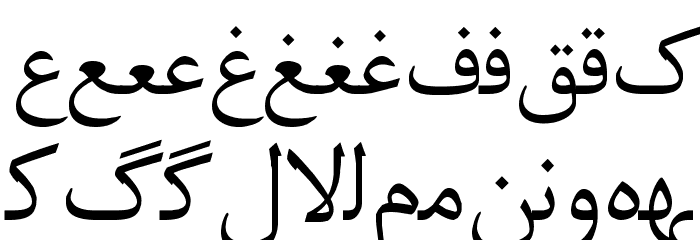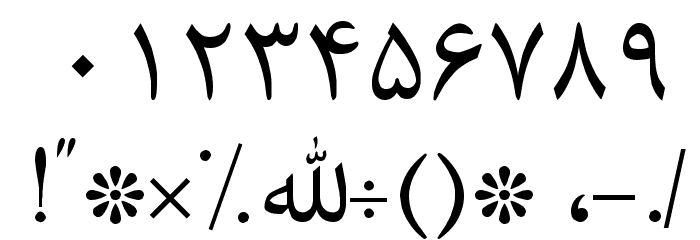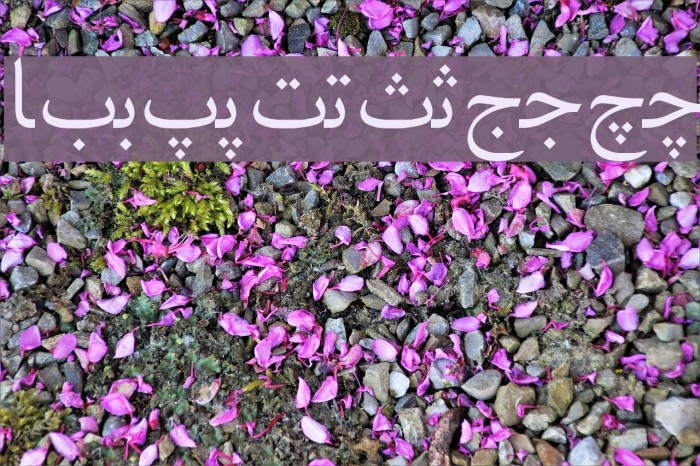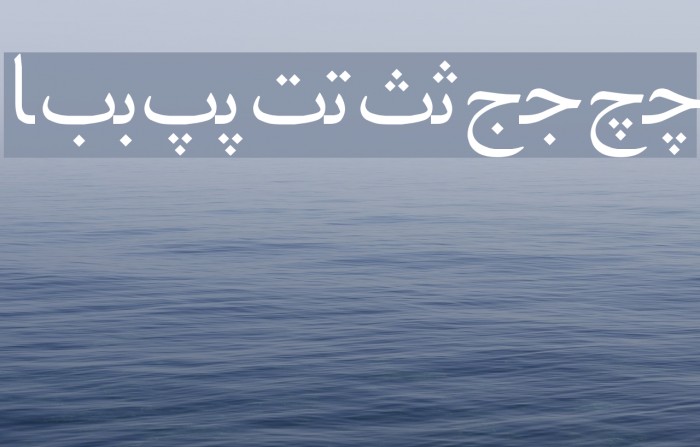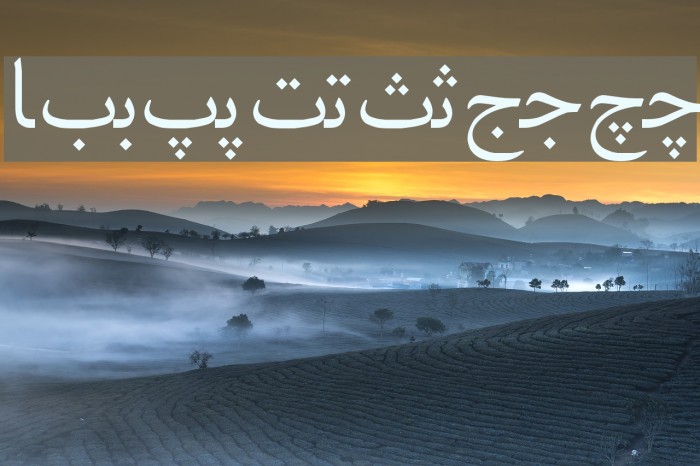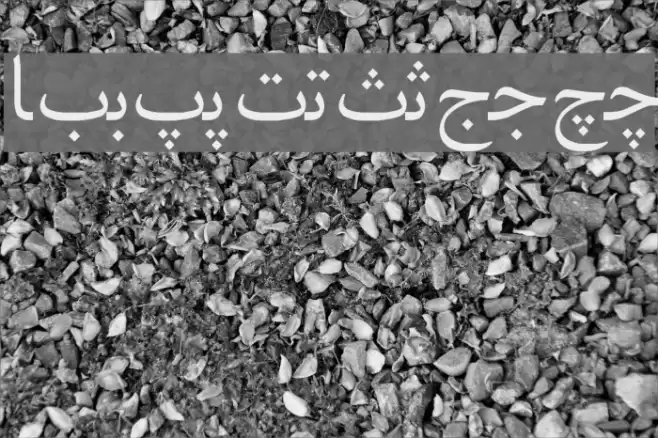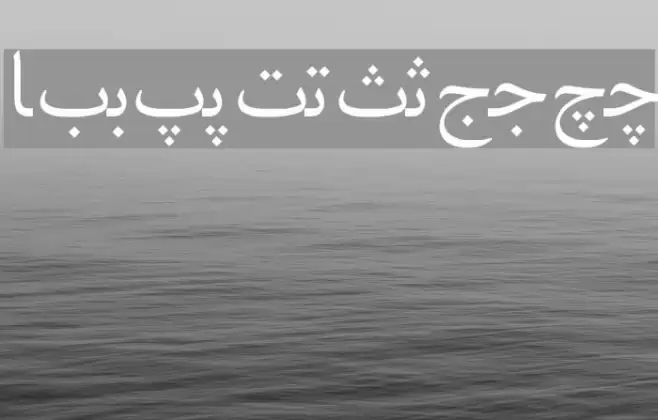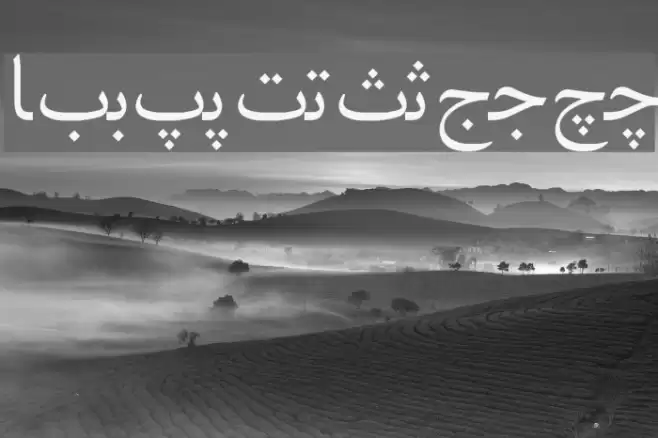
Irnafont_1 Font
This font features a modern and clean design with smooth curves and a balanced structure. The characters are well-defined, offering a clear and legible appearance. The strokes are consistent, with a medium contrast that provides a harmonious look. The font maintains a uniform width, making it versatile for various applications. Its style is contemporary, yet it retains a classic touch, making it suitable for both digital and print media. The spacing between characters is normal, ensuring readability without appearing crowded or sparse.
A modern, clean font with smooth curves and balanced structure.
- Proposed Projects: Ideal for branding, editorial design, digital interfaces, and signage.